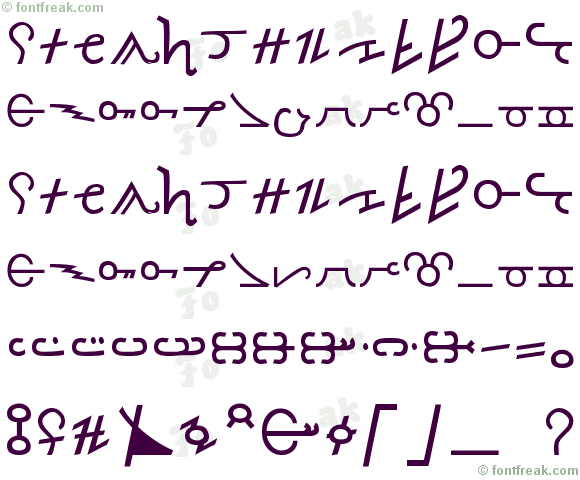
Thorass Normal
Thorass Normal, created by Neale Davidson, is a striking display font that falls under the category of decorative typefaces. Its unique design showcases a blend of whimsical elements and modern aesthetics, making it a standout choice for various creative projects. The font features a medium stroke weight, characterized by smooth curves and playful lines, which contribute to its overall charm. The spacing between characters is well-balanced, ensuring readability while maintaining a light-hearted appearance. Thorass Normal is adorned with decorative elements that evoke a sense of creativity and fun, making it suitable for designs that aim to capture attention.
This font is particularly well-suited for use cases such as wedding invitations, where its playful nature can add a touch of whimsy to the occasion. Additionally, it works wonderfully for movie posters, especially in genres that lean towards fantasy or adventure, where an imaginative font can enhance the visual narrative. Restaurant menus can also benefit from the unique style of Thorass Normal, especially for establishments aiming to convey a trendy or eclectic vibe. Furthermore, content creators looking to add a distinctive flair to their social media graphics or promotional materials will find this font to be an excellent choice.
Target audiences for Thorass Normal include graphic designers, small business owners, and content creators who are seeking a versatile and eye-catching typeface. The font’s freeware license allows for easy access and integration into various projects, making it a practical option for those on a budget. In conclusion, Thorass Normal font free download stands out due to its playful design and versatility, making it a valuable addition to any designer's toolkit. Whether for print or digital media, this font is sure to leave a lasting impression.